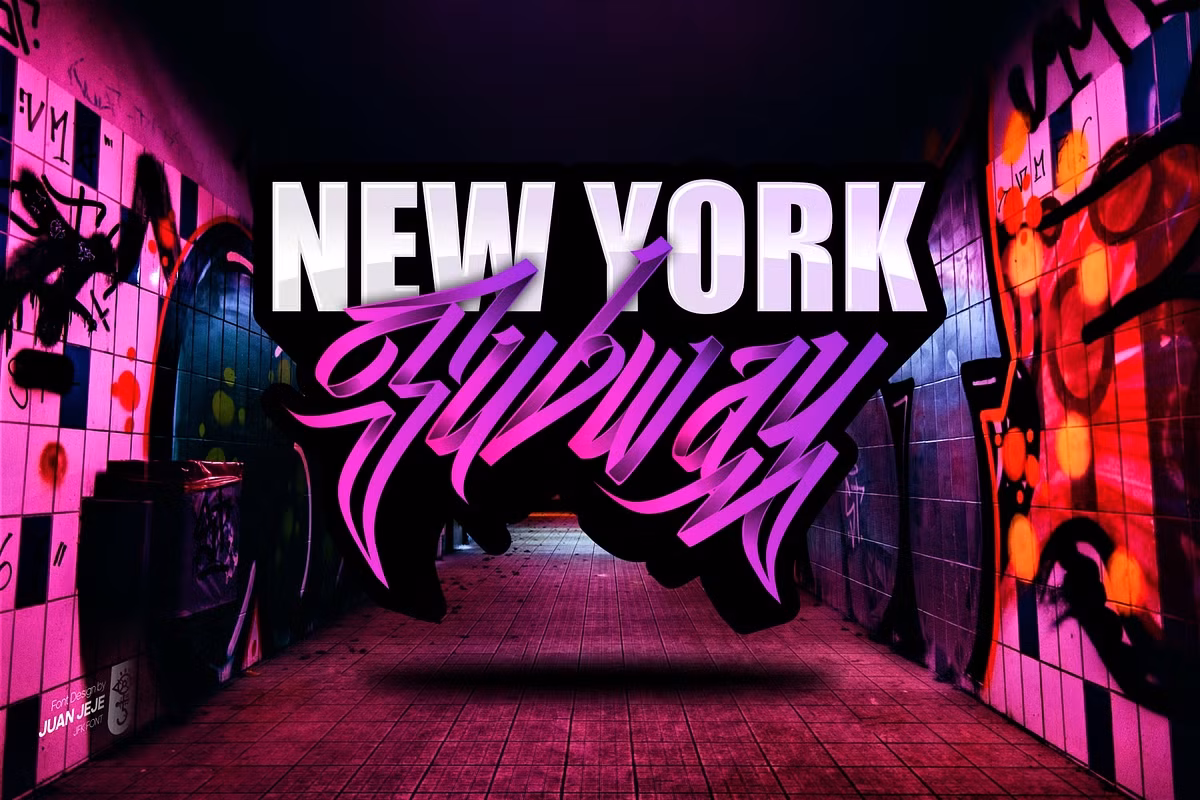
Wall Hunters | Graffiti Tag Fonts UP Free Download
Wall Hunters | Graffiti Tag Fonts UP Free Download is a bold and raw typeface inspired by the underground energy of street art and graffiti culture. With expressive strokes, urban texture, and rebellious character, this font is perfect for hip-hop event flyers, streetwear branding, album covers, skate designs, and edgy digital content.
Its hand-drawn, spray-paint style brings an authentic graffiti vibe to your projects, giving them a gritty, untamed edge. Whether you're tagging a poster or creating merch for a street brand, Wall Hunters makes your message loud and proud.
Designers love Wall Hunters for its street-smart attitude and versatile application across both digital and print. Want to add a raw urban punch to your typography? Download Wall Hunters | Graffiti Tag Fonts UP Free Download and let your design speak in spray and style.